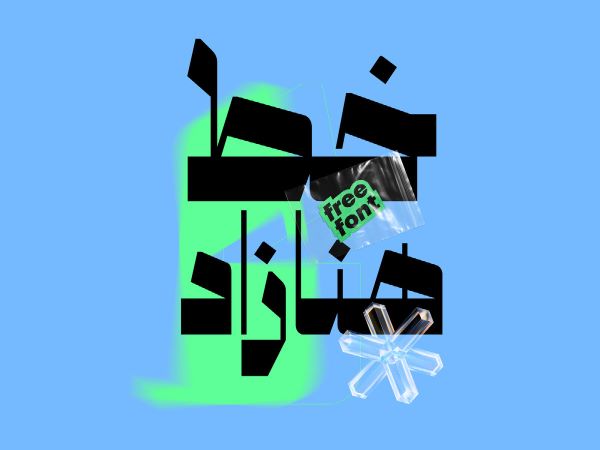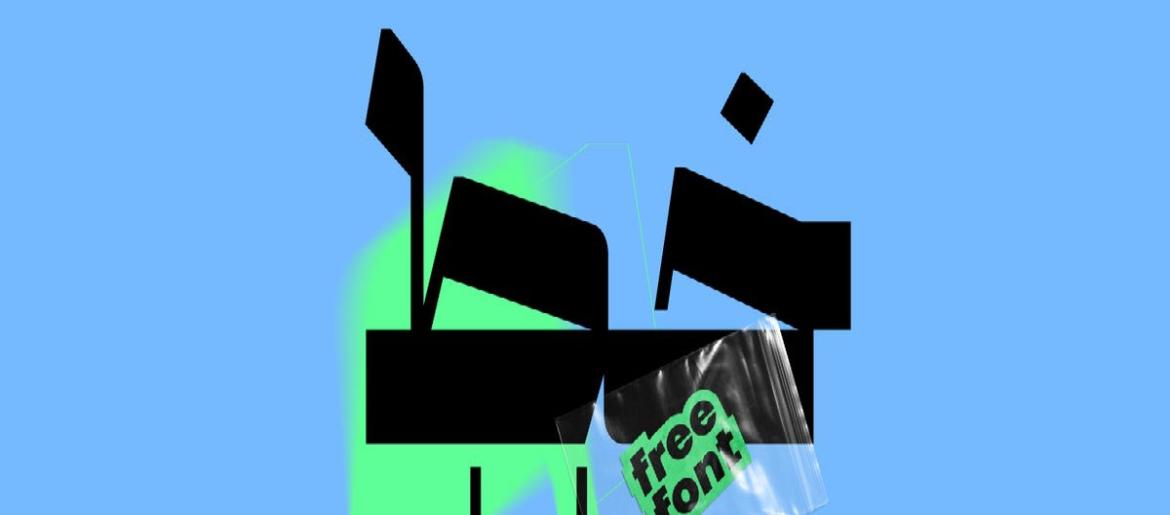
Hanazad Font
Hanazad is a free Arabic display typeface that bridges classical Naskh calligraphy and modern geometric type design. Bold, expressive letterforms make it an excellent choice for headlines and poster work, while a rich set of OpenType features — including eight stylistic sets, swash bowl extensions, ligatures, and contextual alternates — gives designers real flexibility in how the font is applied.